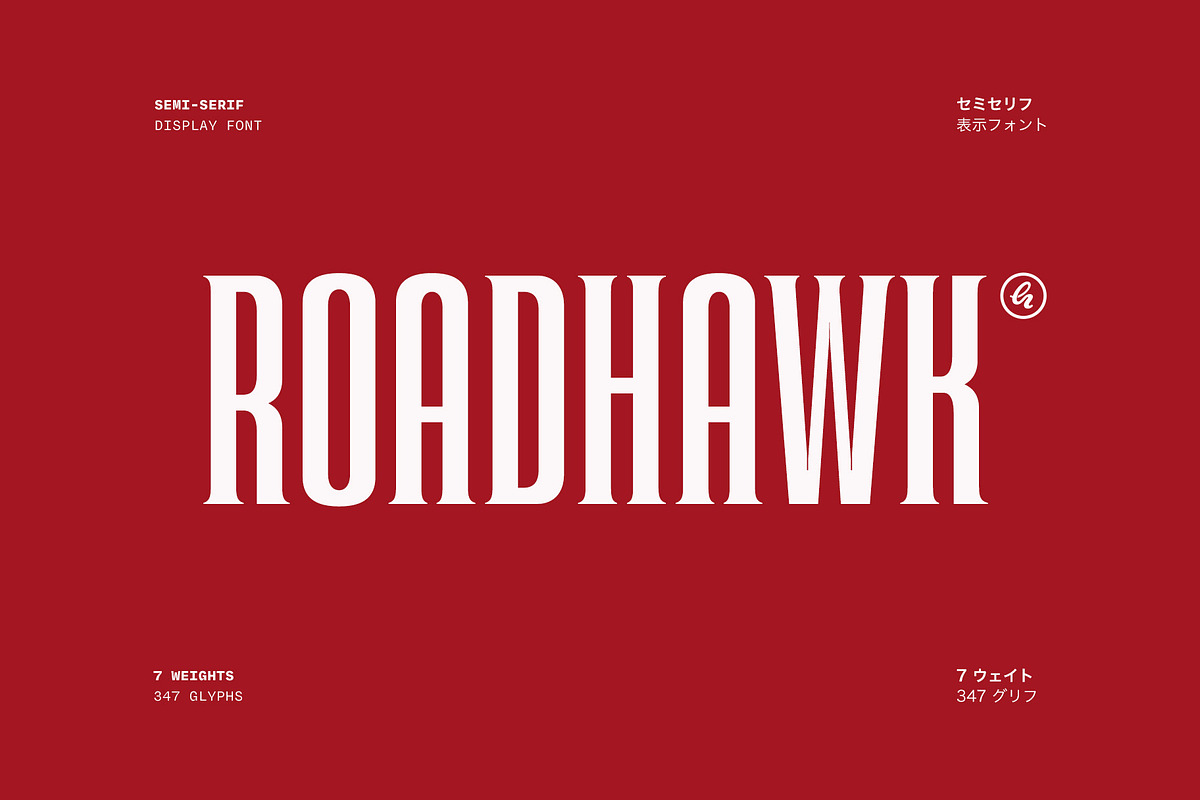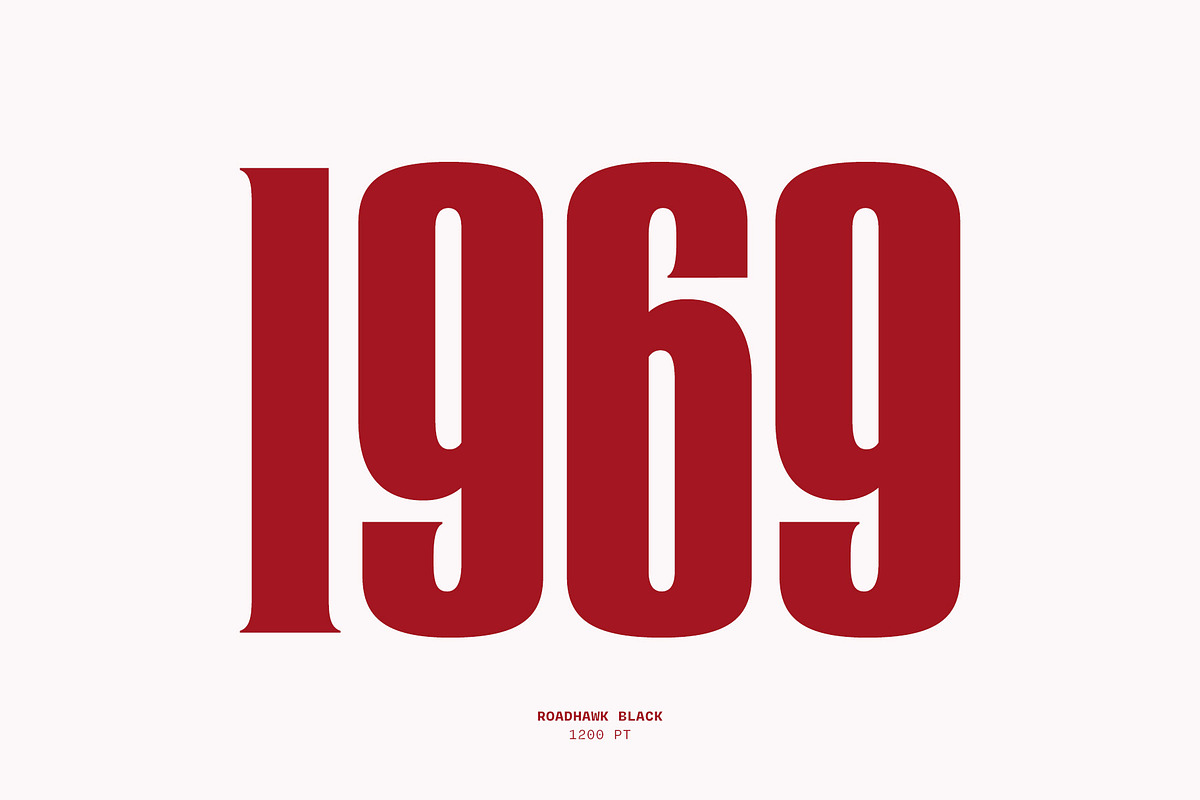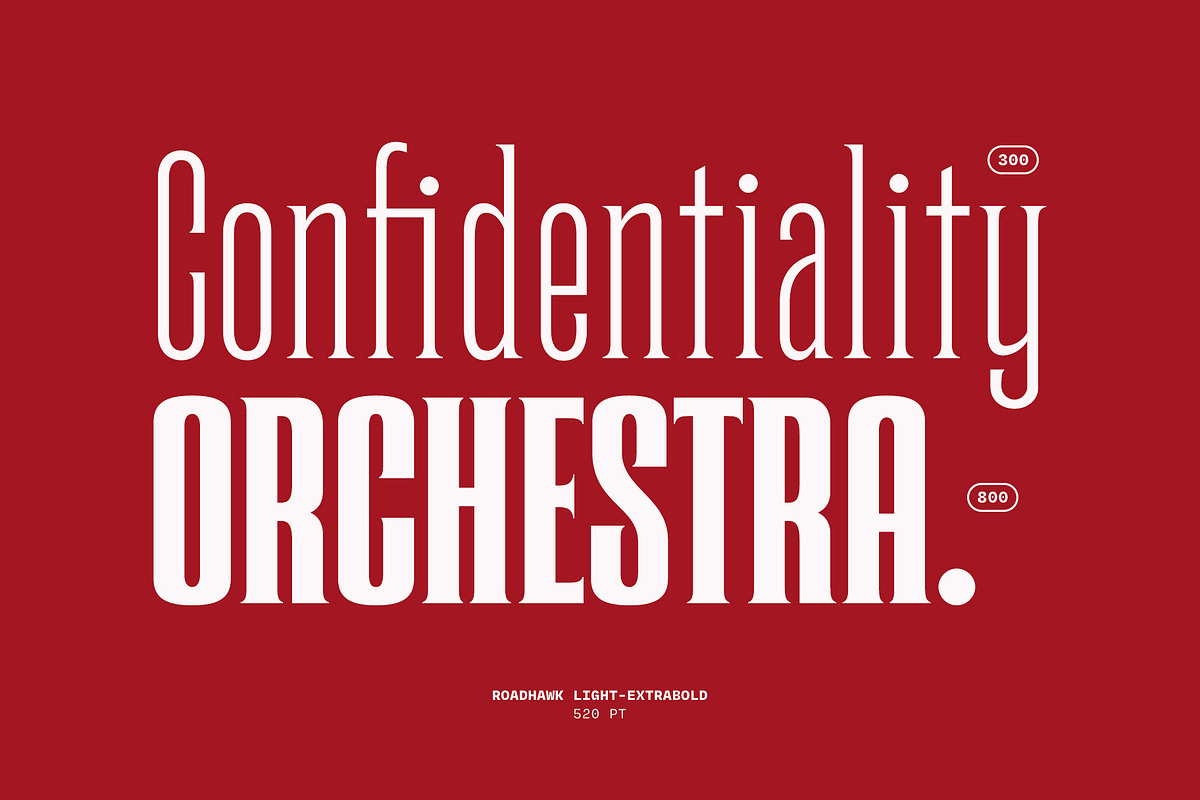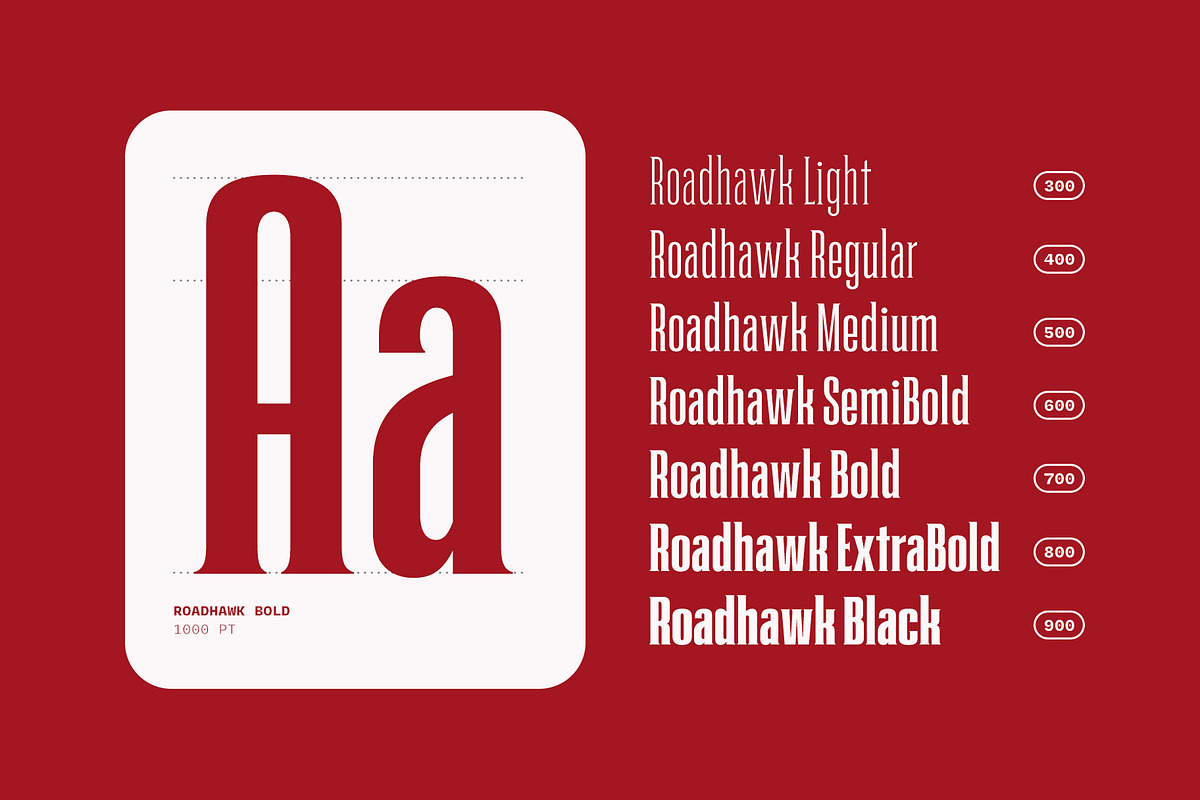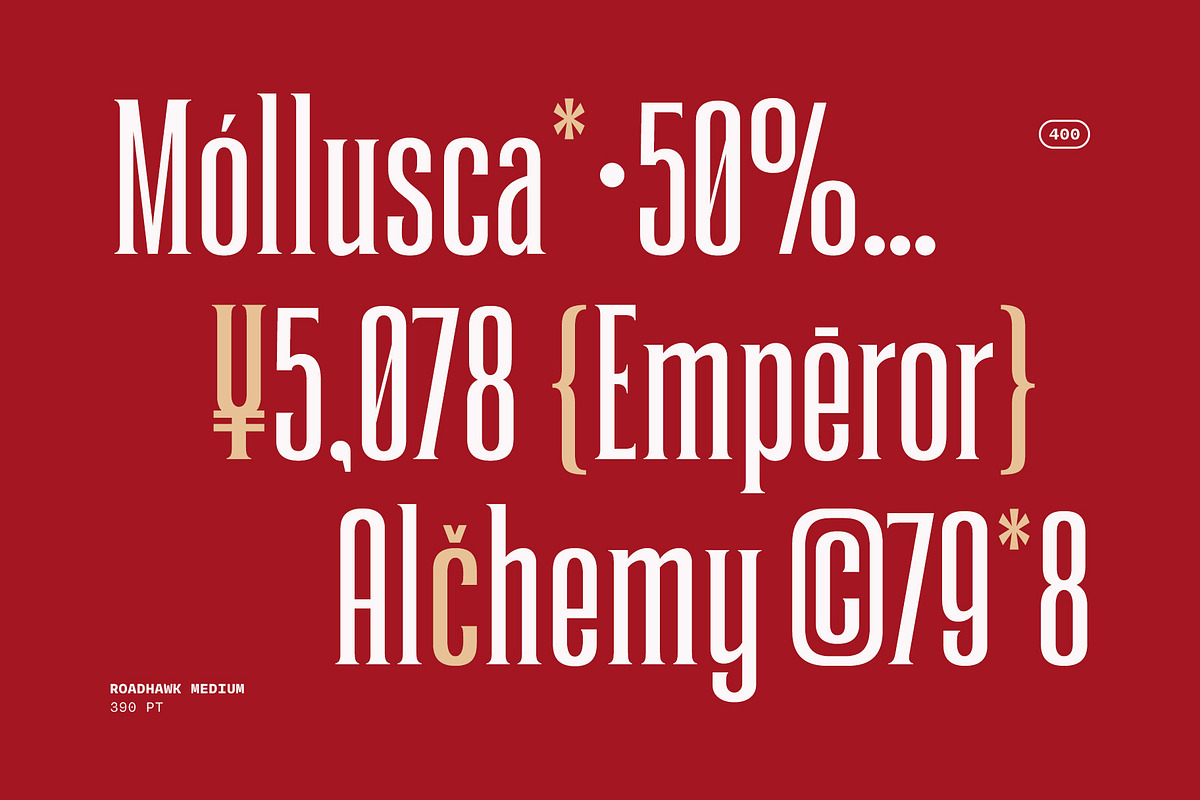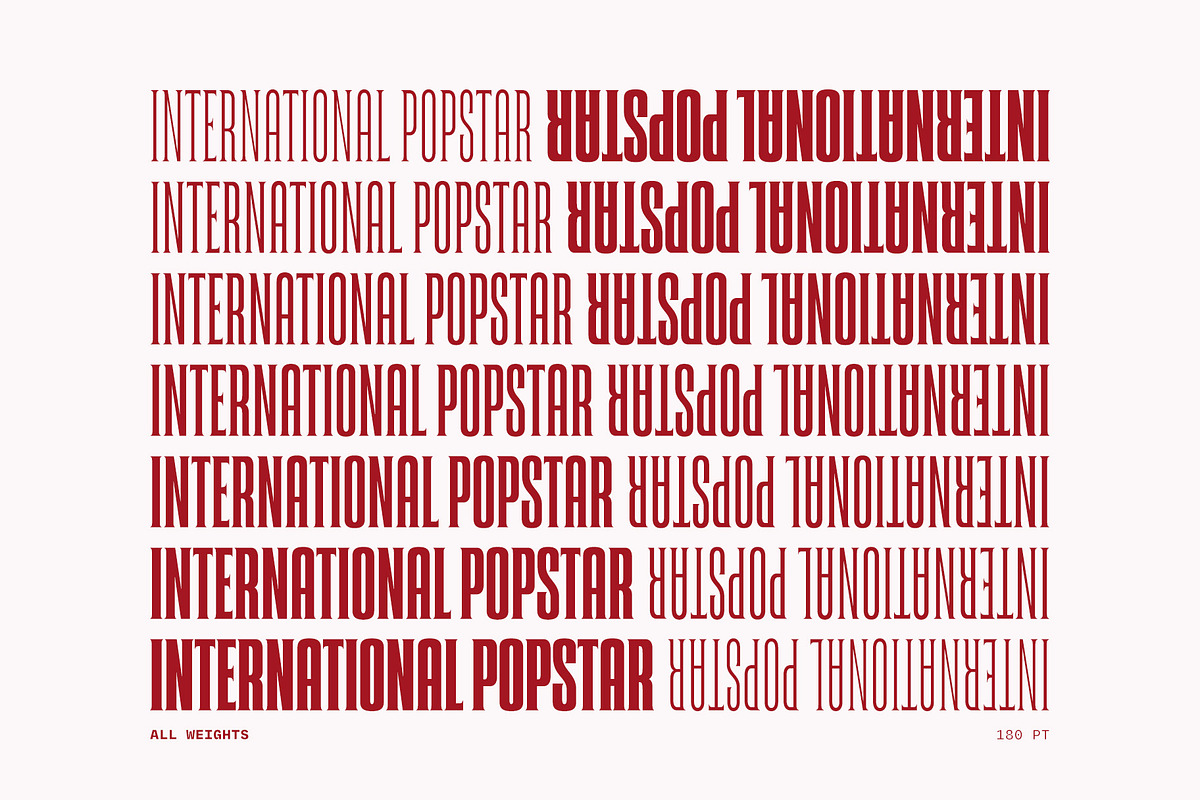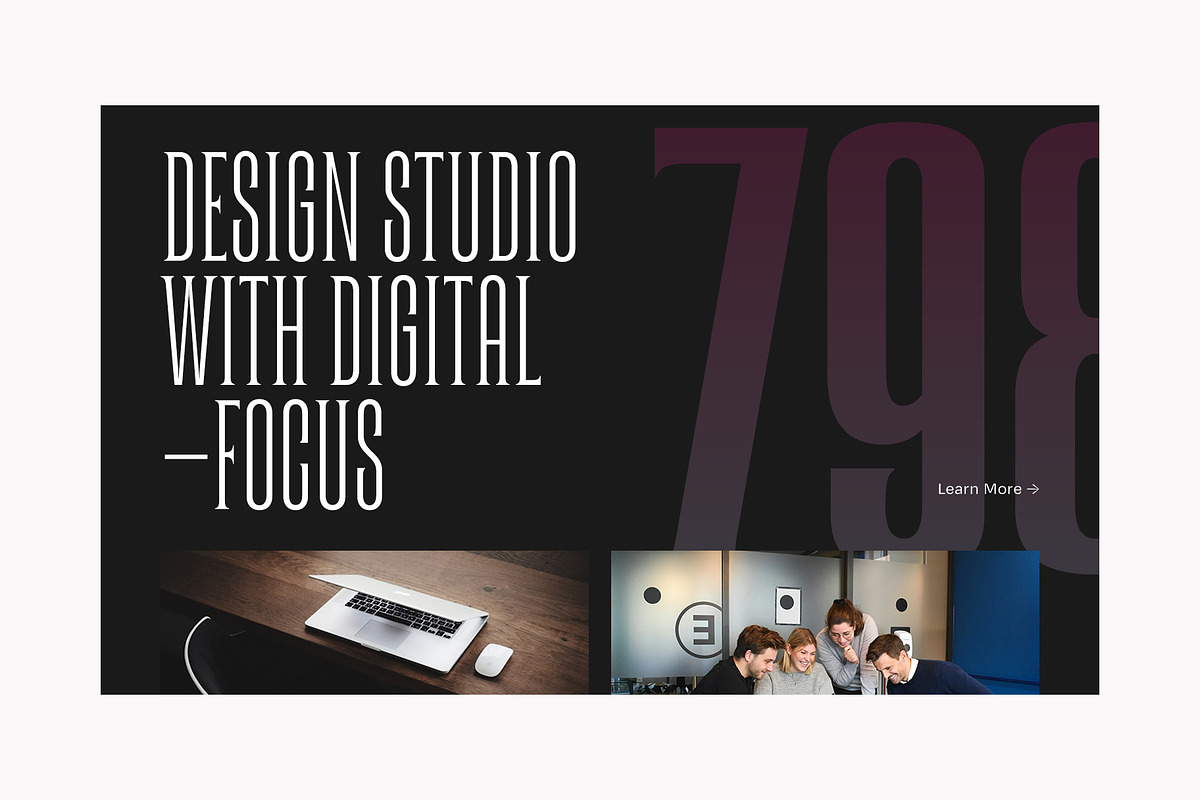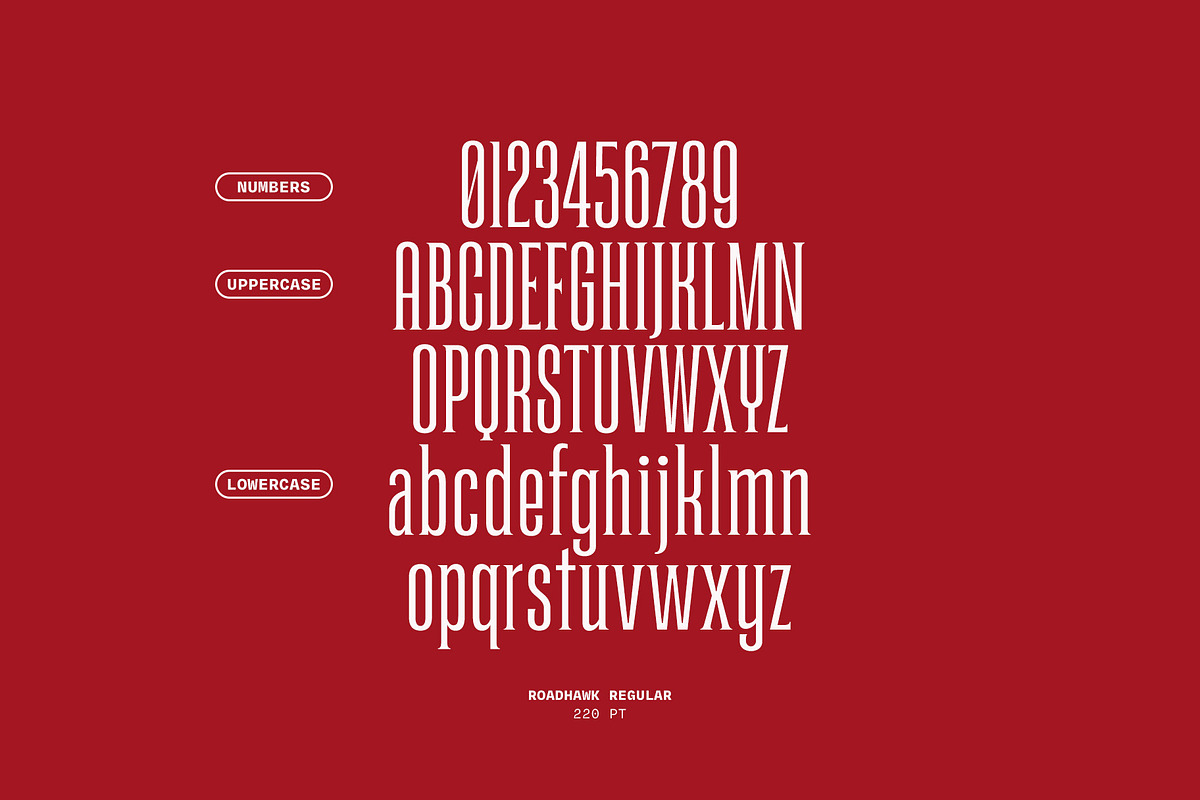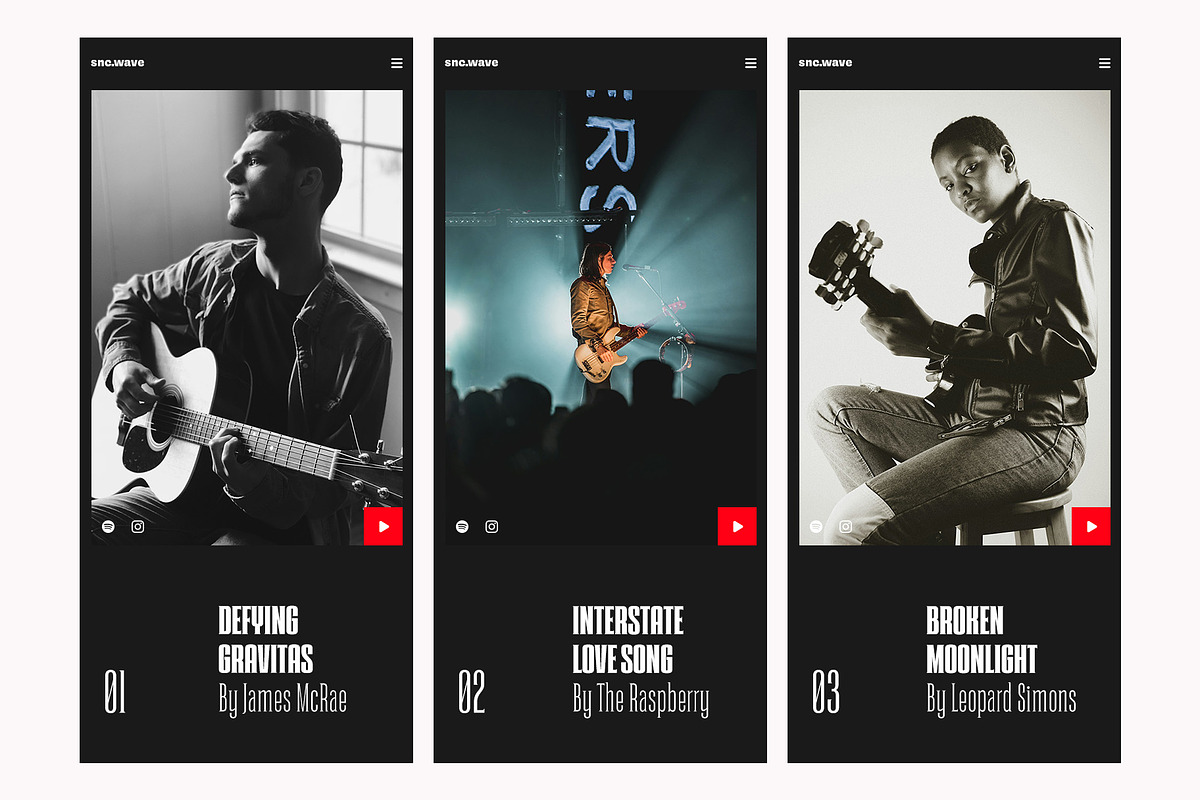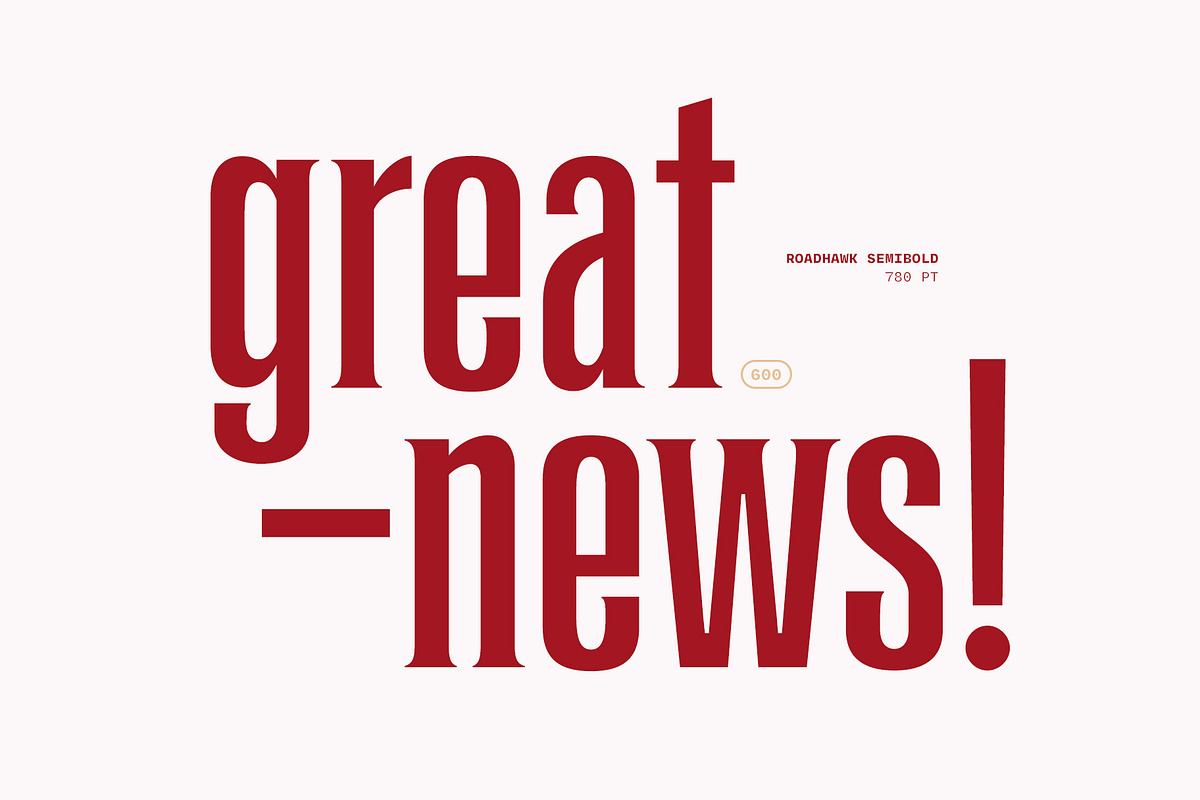
Roadhawk - Condensed Semi Serif
ROADHAWK | Condensed Semi-Serif Display
Roadhawk is a modern, utilitarian typeface designed for clarity and versatility. The straightforward design emphasizes legibility, with minimal serifs or decorative elements, suggesting a focus on functionality in contexts like signage, technical documentation, or digital interfaces. Its uniform stroke widths and open letterforms enhance visibility at various sizes, while the inclusion of a complete character set ensures adaptability across languages and symbols. Whether for branding, UI/UX design, or industrial labeling, Roadhawk combines practicality with a subtle modern edge.
7 weights (Light-Regular-Medium-SemiBold-Bold-ExtraBold-Black)
Uppercase - Lowercase
Numerals - Punctuations - Symbols
Ligatures - Stylistic Sets/Alternates
Accents - Multilingual Characters - Adobe Latin 3